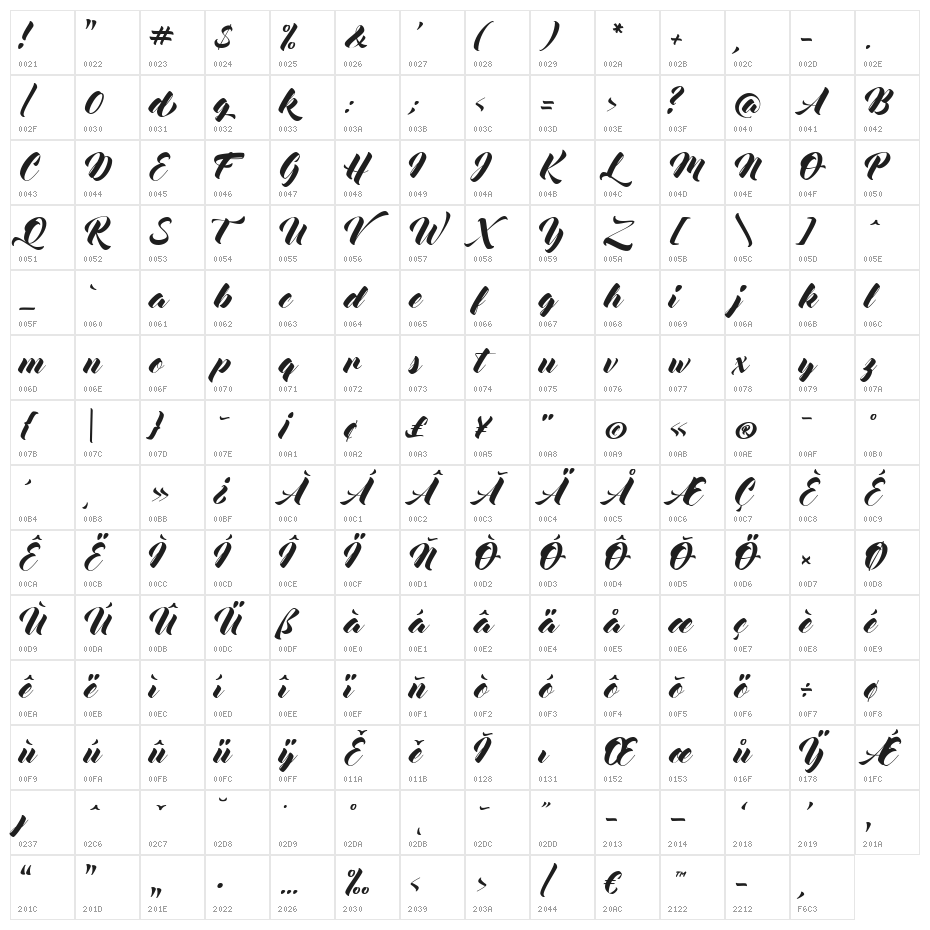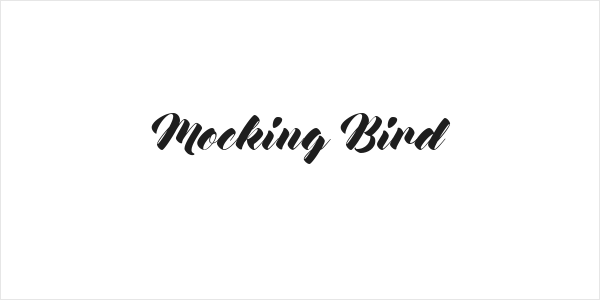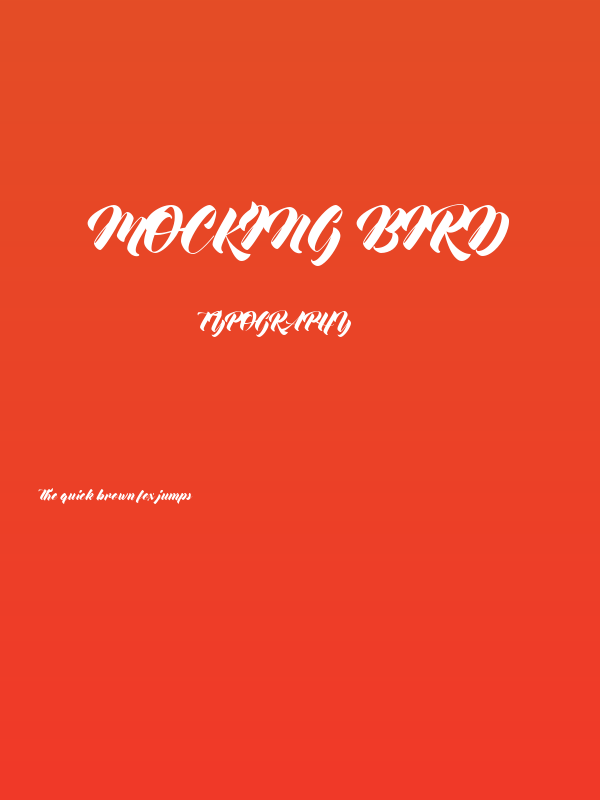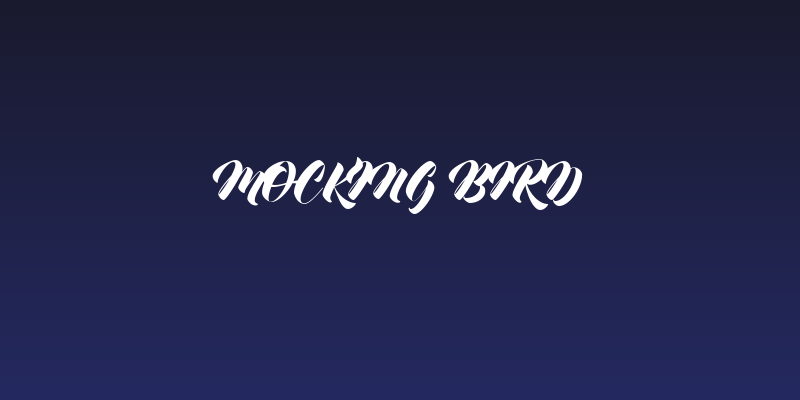
Mocking Bird Font
Mocking Bird Description
This font exhibits a bold and dynamic script style, characterized by its fluid and cursive letterforms. The strokes are thick and expressive, with a high contrast between the thick and thin parts, giving it a dramatic and elegant appearance. The uppercase letters are particularly ornate, with sweeping curves and flourishes that suggest a sense of movement and grace. The lowercase letters maintain a consistent style, complementing the uppercase with their own subtle flourishes. The numbers and special characters are designed to match the overall aesthetic, ensuring a cohesive look across all elements. This font is ideal for projects that require a touch of sophistication and flair.
| Proposed Projects | Ideal for wedding invitations, luxury branding, elegant signage, and artistic posters. |